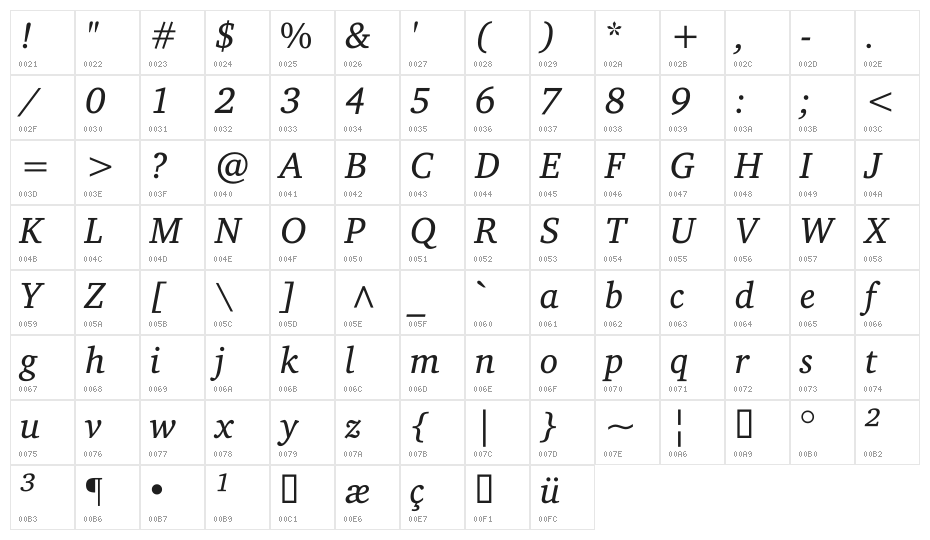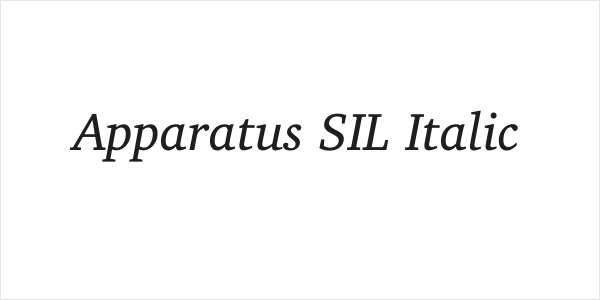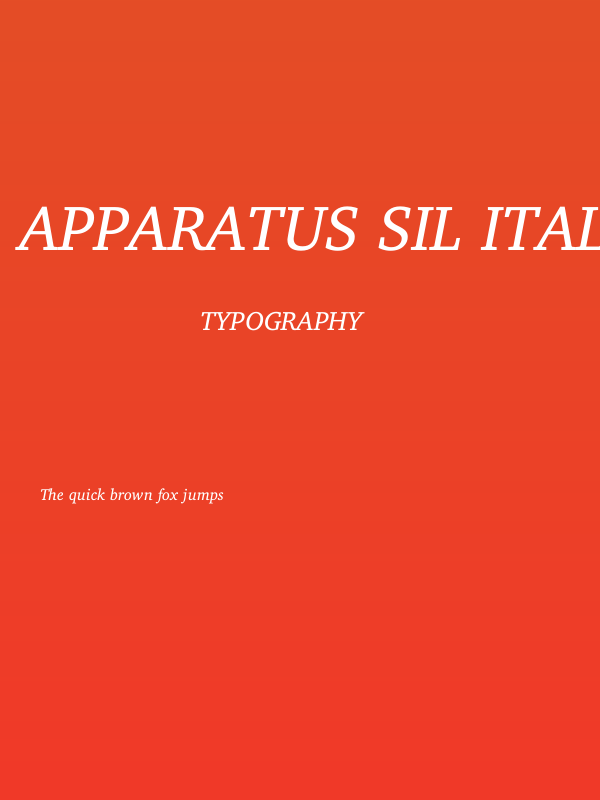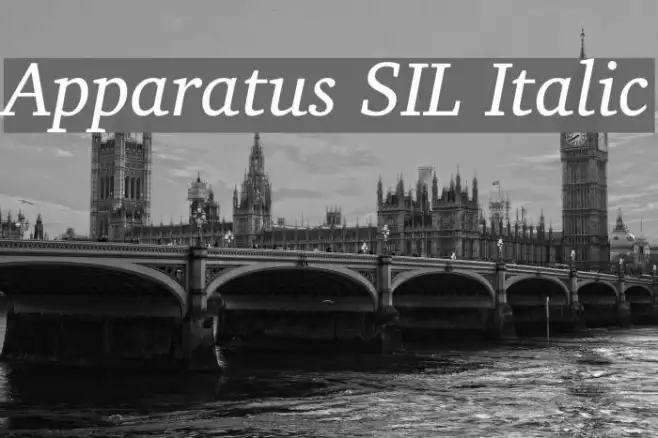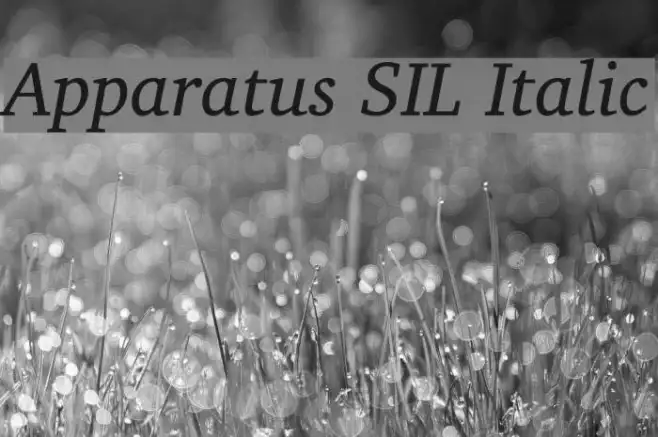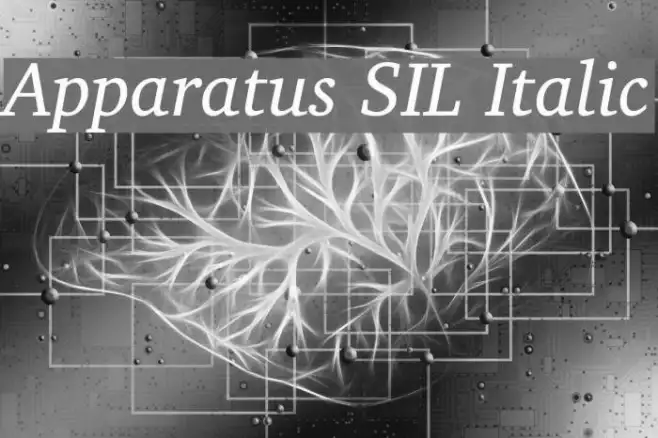
Apparatus SIL Italic Font
Apparatus SIL Italic Description
This font exhibits a classic serif style with a distinct italic slant, providing an elegant and sophisticated appearance. The characters are well-defined with moderate contrast between thick and thin strokes, enhancing readability while maintaining a stylish look. The uppercase letters are tall and commanding, while the lowercase letters are more rounded and approachable. The numerals are consistent with the overall design, ensuring clarity and uniformity. Special characters are crafted with the same attention to detail, making them suitable for various applications. The font's overall aesthetic is timeless, making it versatile for both traditional and modern design projects.